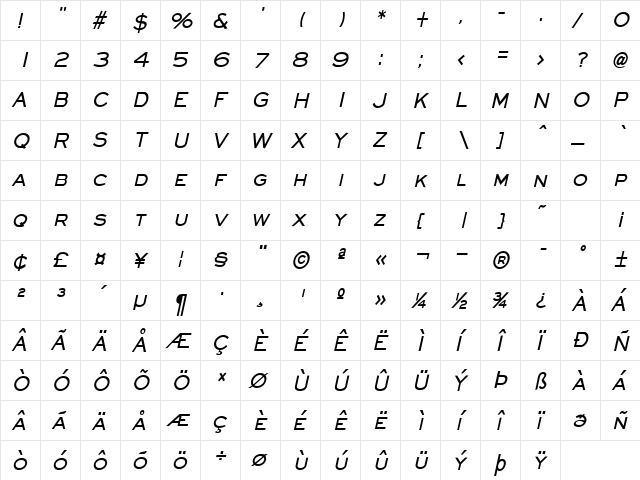
Eyeglass-Condensed Bold Italic Font Preview
Design Context for Eyeglass-Condensed Typeface
Eyeglass-Condensed offers clean, dependable letterforms without strong stylistic allegiance, making it a practical choice for designers who need flexibility. Its italic angle brings a sense of urgency and motion to the letterforms. Its bold stroke weight gives it real presence on the page. The condensed width makes it efficient for tight spaces without sacrificing legibility.
Pro Tip: Try Eyeglass-Condensed for annotation and caption copy alongside an upright companion — the contrast in angle creates a dynamic but ordered typographic system.